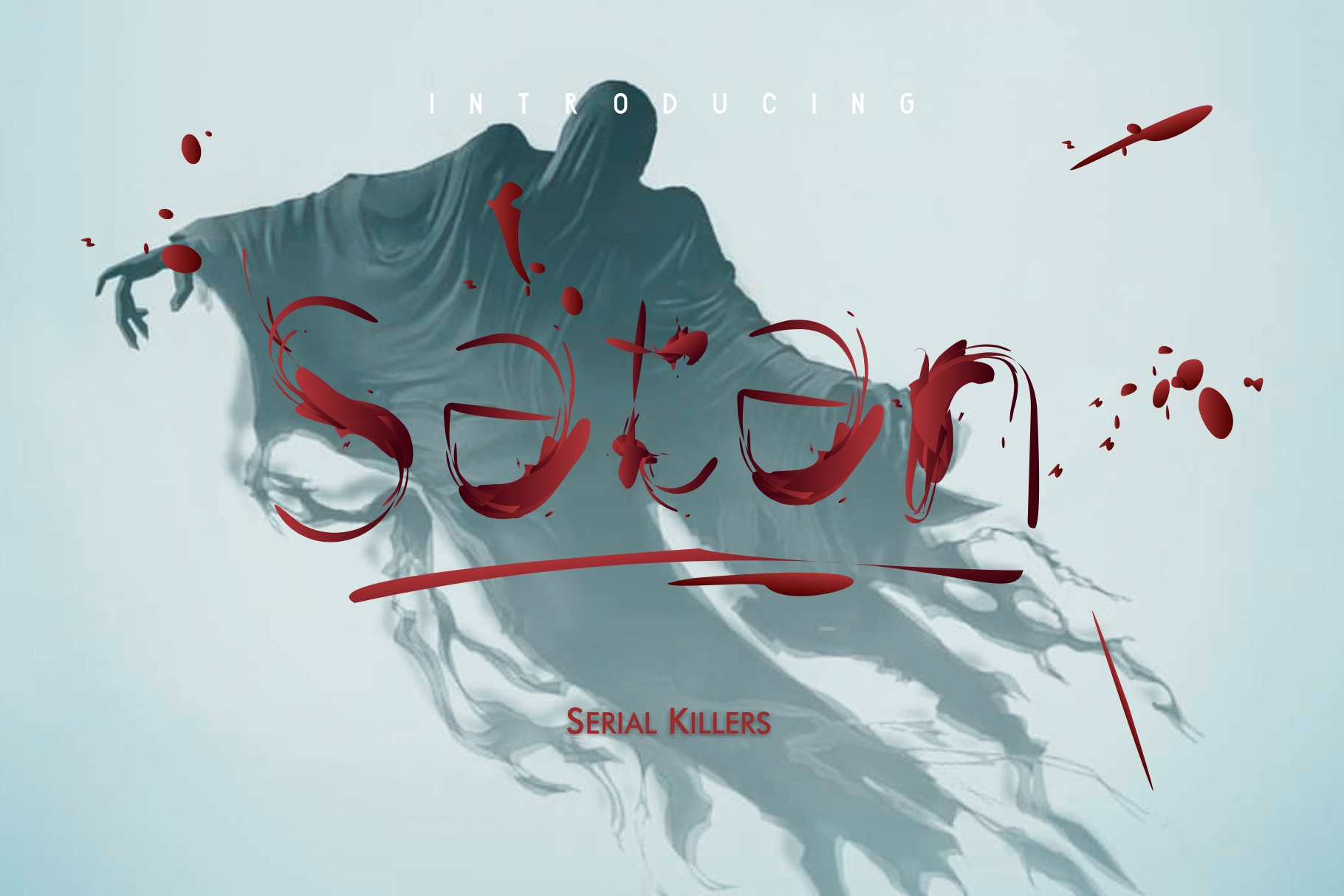
Satan Font
Give your designs an authentic brush handcrafted fell. “SatanTypeface” is perfeccly suited to stationery, poster, product packaging, album cover, movie poster and much more